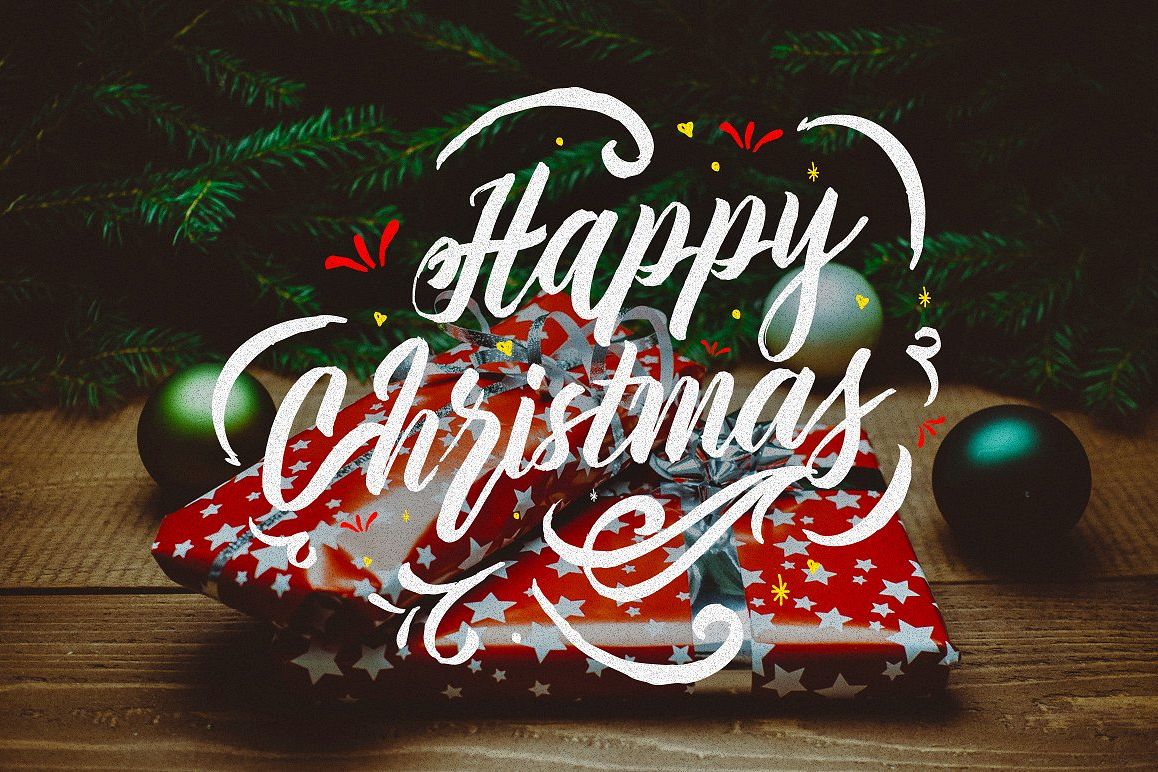
Natalia Script
Natalia
Natalia Script is hand painted typeface designed to help you create the look of stunning custom hand-lettering. Natalia Script comes with upper and lowercase characters, punctuation, numerals,supports international languages and OpenType Natalia script is very best choice fonts for : ,quotes, Posters, Logos, Print Ads, Digital Ads, Promotion Product, video bumper, etc.features : Stylistic Alternates ContextualExtra : swashesStylistic alternates for key lower case characters are also available, accessible in the Adobe Illustrator Glyphs panel, or under Stylistic Alternates in the Adobe Photoshop OpenType menu.Thanks